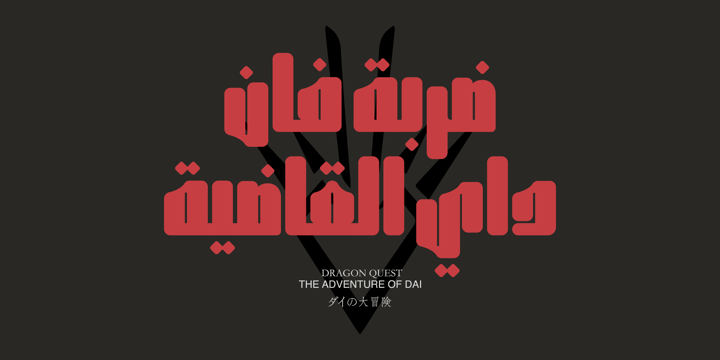
Qoronfull Arabic
by Boharat Cairo
Qoronfull Arabic Font Family was designed by Abdo Mohamed, Tawfiq Aldawi and published by Boharat Cairo. Qoronfull Arabic contains 1 styles.
About Qoronfull Arabic Font Family
Qoronfull is an exuberant industrial display typeface, full of curves that create neat alignments. and it's our second collaboration with Hey Porter!
Qoronfull means clove, (a dried flower buds spice tree native to Indonesia), Qoronfull's esthetics, curves, and lines are representing the flowers, leaves, and stems of clove, applied on a strong base of Arabic Kufi calligraphy style, with a big group of type compositions and ligatures.